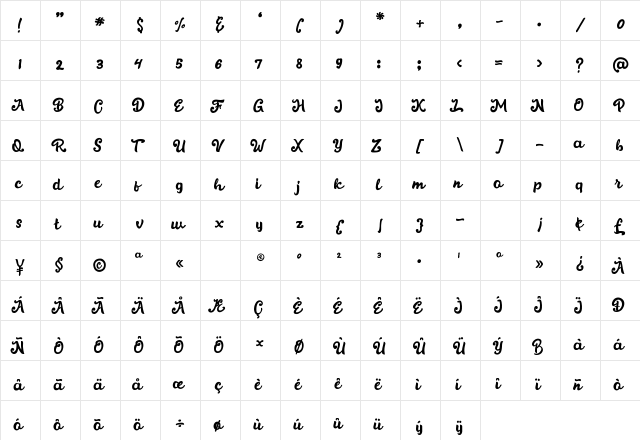
Bodyluck Regular
| Foundry | Ibey Design Studio |
| Designer | Ikrar Bey Khubaib |
Design Context for Bodyluck Typeface
Bodyluck takes a measured approach to typography — its balanced proportions and neutral character make it a reliable workhorse for both digital and print work.